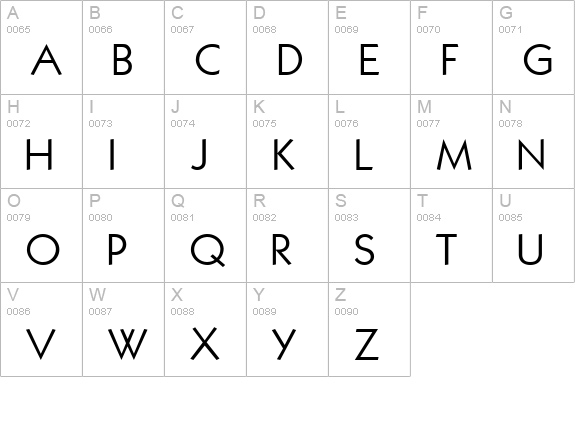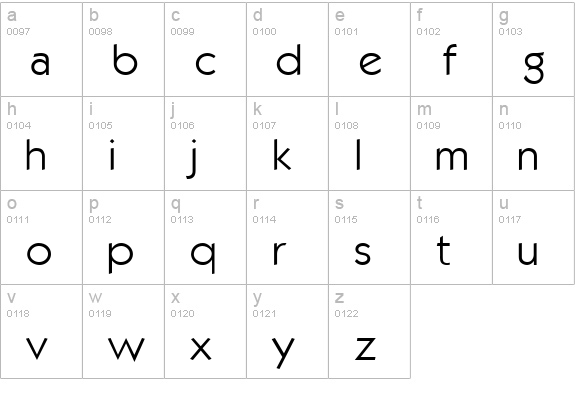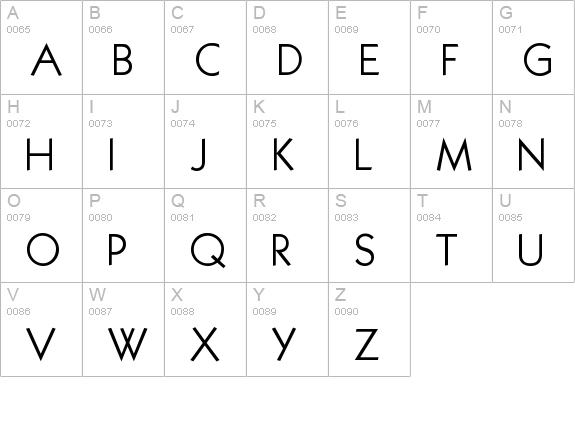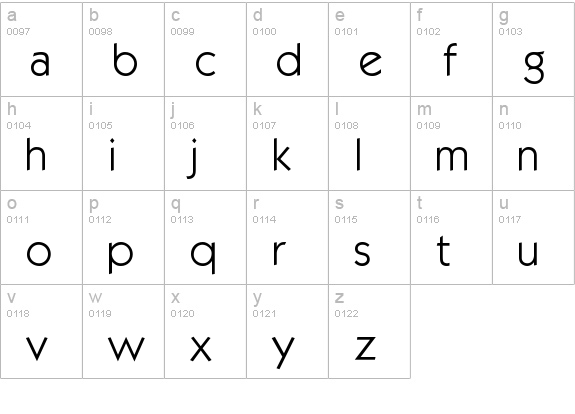
KabanaBook Font Details
KabanaBook font is a stunning typeface that effortlessly blends elegance and readability. With its sleek and modern design, this font is perfect for a wide range of projects, from branding and advertising to web design and editorial layouts. The beauty of KabanaBook lies in its versatility. Whether you're looking to create bold headlines or refined body text, this font has the flexibility to meet all your typography needs. Its clean lines and well-balanced proportions ensure legibility across different platforms and sizes. But what truly sets KabanaBook apart is its accessibility. This font is freely available to download at FontsMarket.com, making it accessible to designers, students, and anyone else in need of a high-quality typeface without breaking the bank. No longer do you have to compromise on quality or pay exorbitant fees to access premium fonts. With KabanaBook, you can unleash your creativity and elevate your designs without any limitations. So why wait? Head over to FontsMarket.com and download KabanaBook today to add a touch of sophistication to your projects.